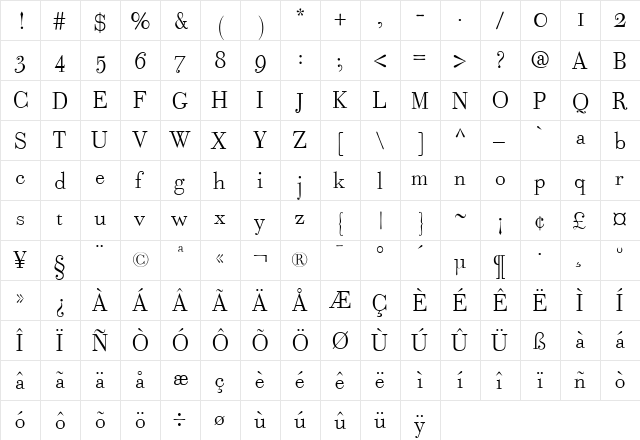
Bodoni Classic Text Light Regular
Design Context for Bodoni Classic Text Light Typeface
Bodoni Classic Text Light wears its vintage influences proudly, with letterforms that recall mid-century signage, classic packaging, and nostalgia-driven design. The delicate stroke weight brings airiness and refinement to layouts.
Ideal for diner signage, record shop branding, 70s/80s-themed projects, and heritage product labels.
Font Pairing: Combine Bodoni Classic Text Light with a simple slab or neutral sans — period-accurate companions reinforce the vintage feel without competing for attention.
Pro Tip: Lean into Bodoni Classic Text Light's period character by pairing it with aged paper textures, muted colour palettes, and vintage illustration styles.